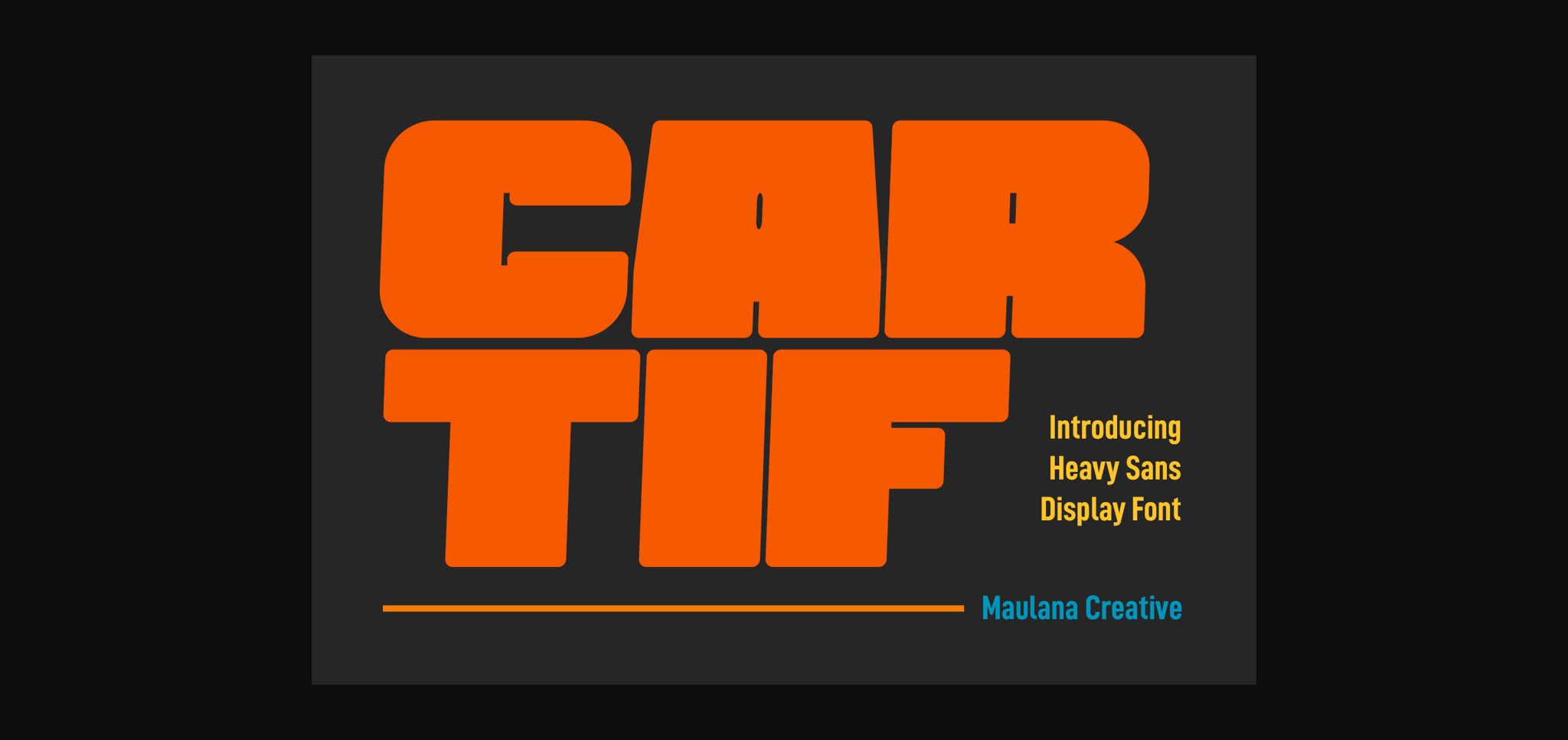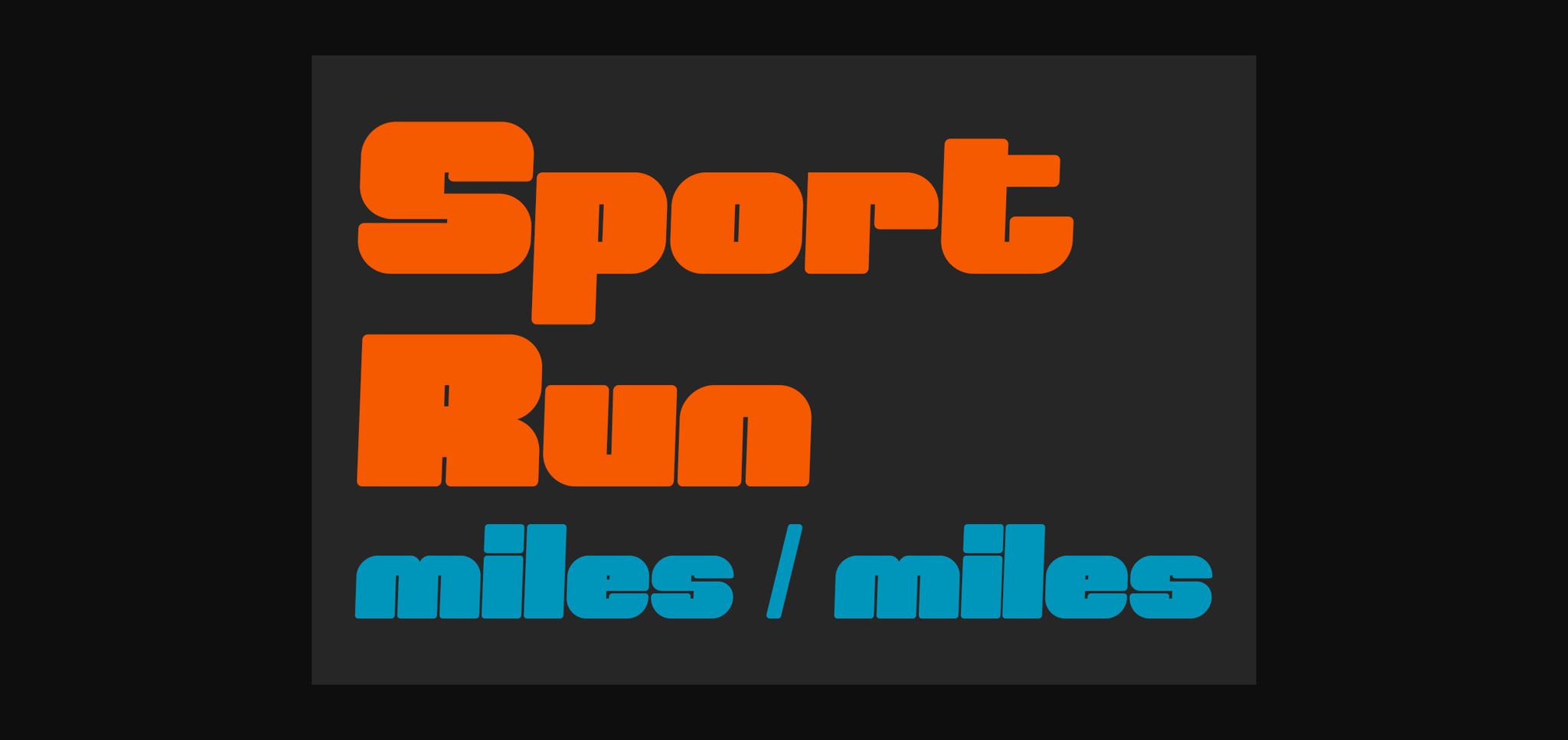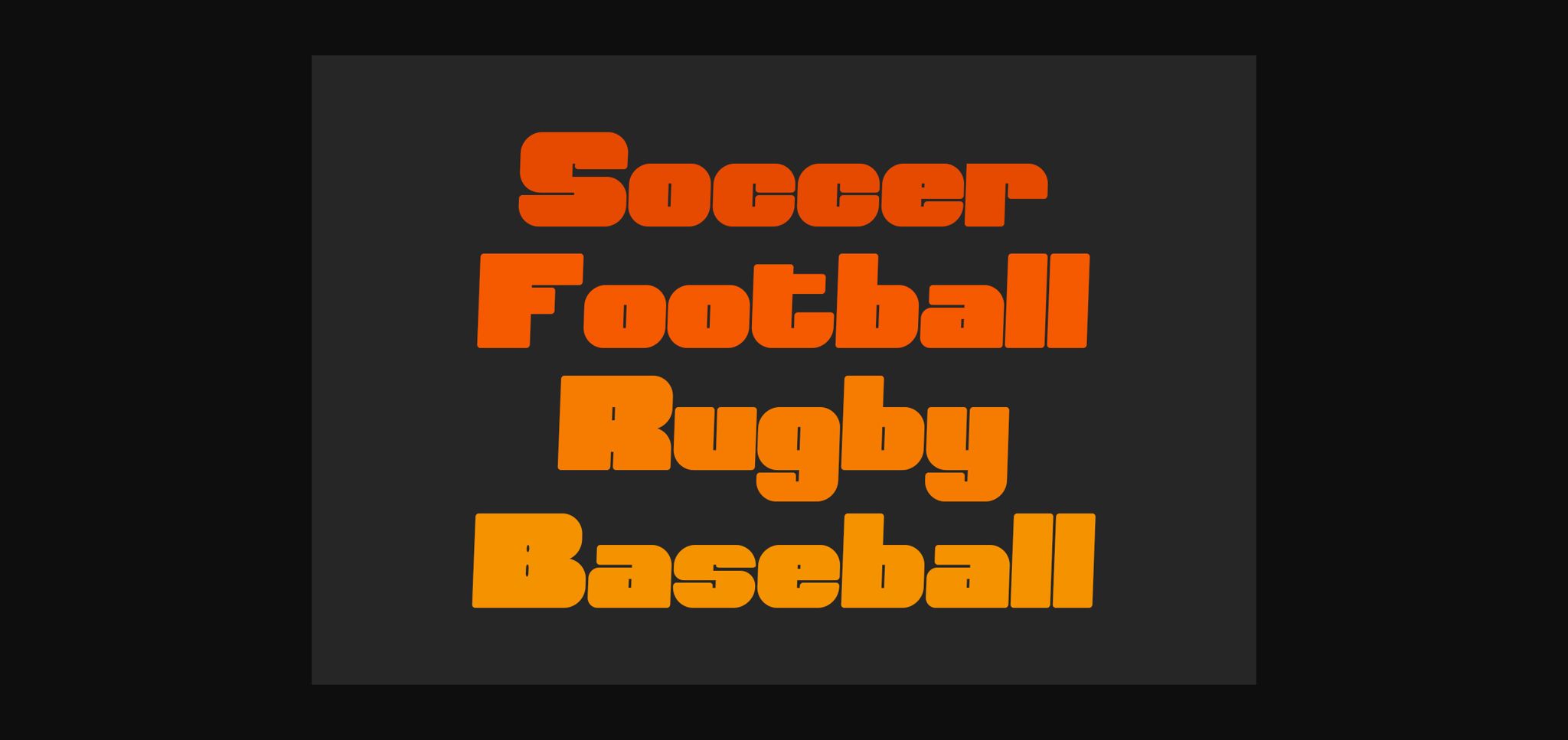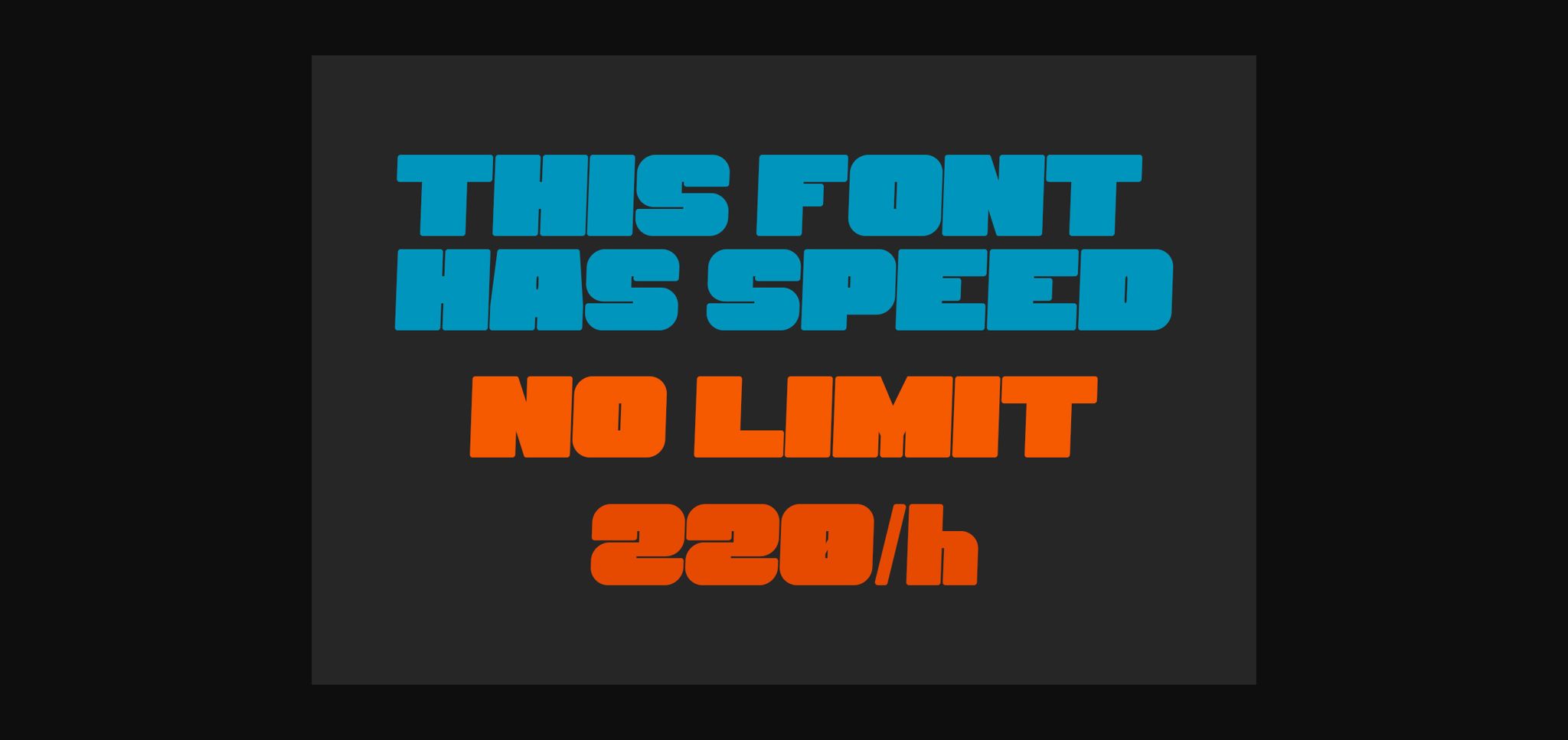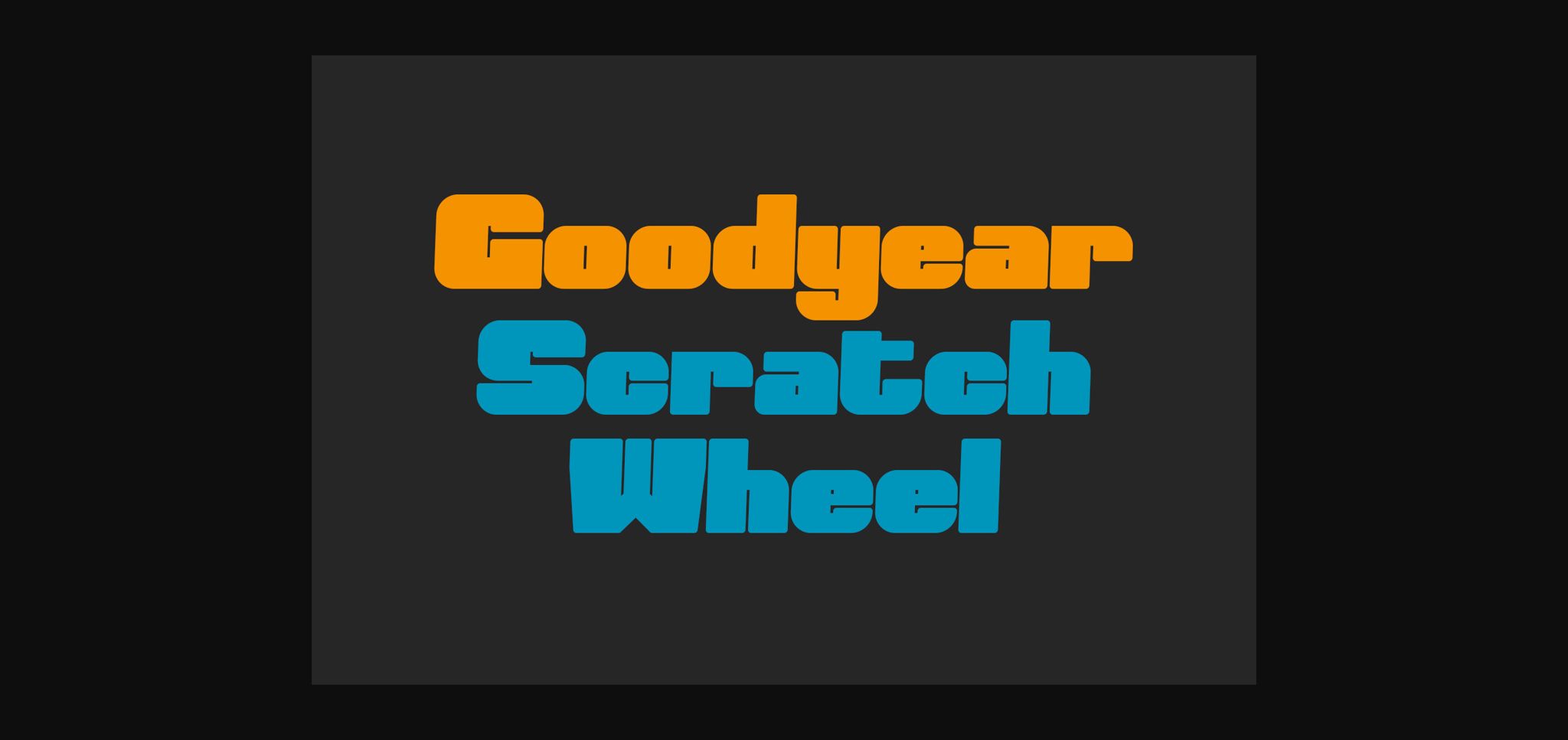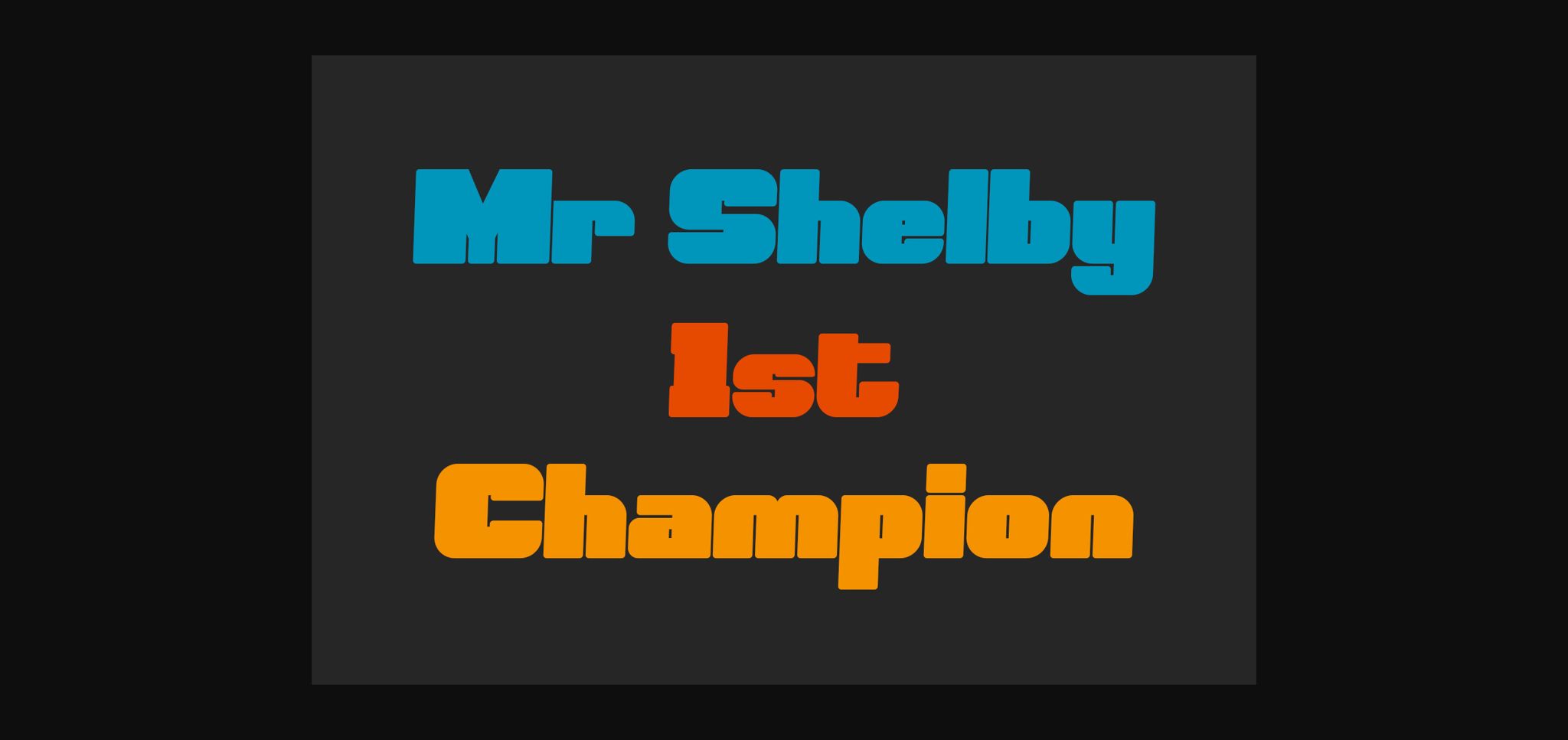
Cartif Font
About Cartif Font
Cartif is a strong bold semi slanted display font. Trendy, stylish, and strong, this typeface is suitable for a wide spectrum of applications!